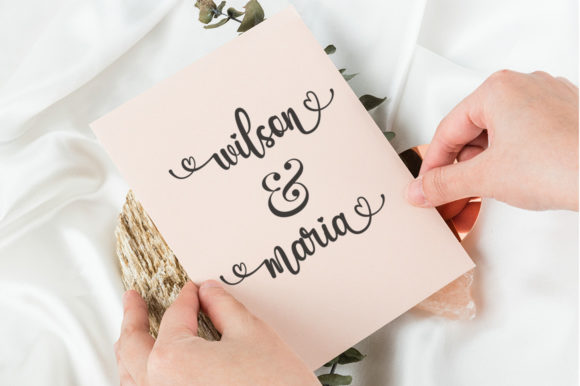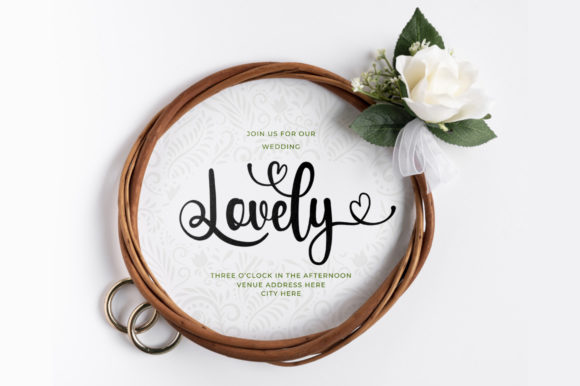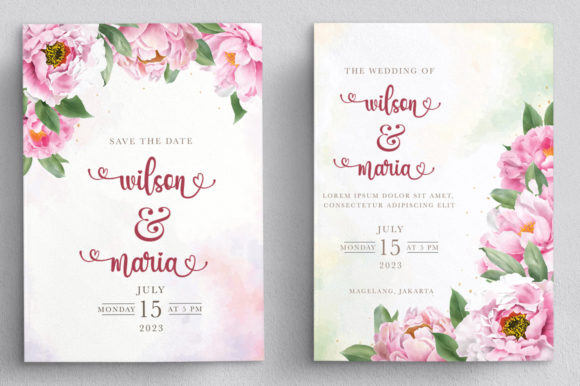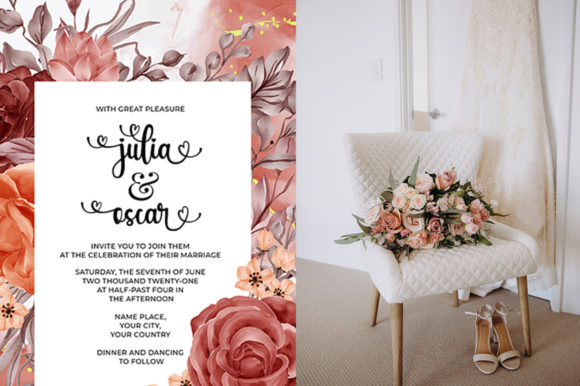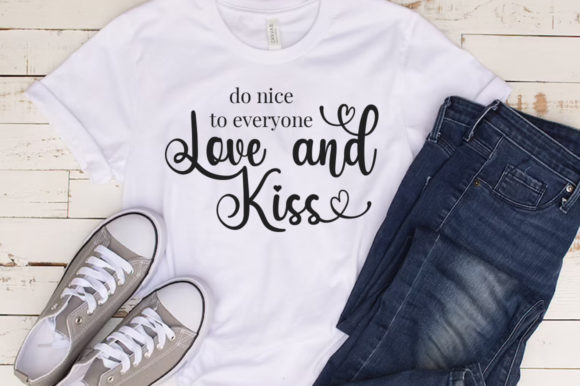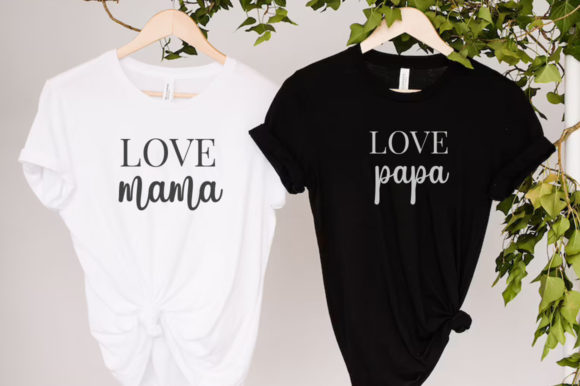
Introducing Almida Font: Elevate Your Designs with Elegance and Sophistication
In the world of typography, a font can make or break a design. For designers and crafters seeking to add a touch of class and modernity to their work, Almida Font is an exceptional choice. This beautiful and smooth script font is designed to bring an air of elegance and sophistication to various design projects, from logos and branding to invitations, stationery, wedding designs, social media posts, and more.
What Makes Almida Font Stand Out?
Almida Font boasts a classy, elegant, and modern look that sets it apart from other script fonts. Its smooth lines and flowing curves create a visually appealing aesthetic that can instantly elevate the quality of your designs. Whether you’re working on a logo, a wedding invitation, or a social media post, Almida Font provides the perfect blend of style and versatility.
PUA Encoding for Easy Access to Glyphs and Swashes
One of the key features that make Almida Font highly accessible and user-friendly is its PUA (Private Use Area) encoding. This means that users can easily access all the beautiful glyphs and swashes without any hassle. PUA encoding allows designers to unlock the full potential of the font, enabling them to experiment with different styles and variations to suit their design needs.
Endless Design Possibilities with Almida Font
The versatility of Almida Font is one of its most significant advantages. This font can be used across a wide range of design projects, including:
- Logos and Branding: Create a lasting impression with a unique and memorable logo that reflects your brand’s personality.
- Invitations and Stationery: Add a touch of elegance to your invitations, business cards, and letterheads.
- Wedding Designs: Make your wedding stationery, such as invitations, programs, and place cards, truly special with Almida Font.
- Social Media Posts: Elevate your social media content with stylish and engaging text that stands out.
Why Choose Almida Font?
With so many fonts available, why should you choose Almida Font for your design projects? Here are a few compelling reasons:
- Unique and Memorable: Almida Font’s distinctive style ensures that your designs will be remembered.
- Ease of Use: Thanks to PUA encoding, you can easily access and use the font’s extensive features.
- High-Quality Design: The font’s smooth lines and elegant curves guarantee high-quality designs that impress.
- Versatility: From professional branding to personal projects, Almida Font adapts to any design need.
Tips for Getting the Most Out of Almida Font
To maximize the potential of Almida Font, consider the following tips:
- Experiment with Swashes: Don’t be afraid to try out different swashes and glyphs to add a personal touch to your designs.
- Mix and Match: Combine Almida Font with other fonts to create a unique contrast and visual interest.
- Pay Attention to Spacing: Ensure that your text is well-spaced to maintain readability and aesthetic appeal.
Almida Font is a beautiful and smooth script font that offers designers and crafters a classy, elegant, and modern solution for their typography needs. With its PUA encoding for easy access to glyphs and swashes, and its versatility across various design projects, Almida Font is an excellent addition to any design toolkit. Whether you’re creating logos, branding materials, invitations, or social media posts, Almida Font is sure to elevate your designs to new heights of elegance and sophistication.